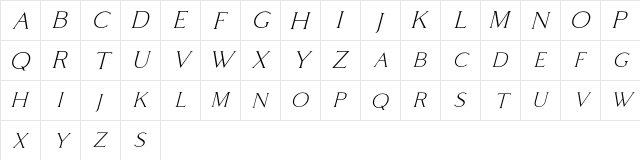
Coldiac Free Italic
Design Context for Coldiac Free Typeface
Coldiac Free takes a measured approach to typography — its balanced proportions and neutral character make it a reliable workhorse for both digital and print work. Its italic angle brings a sense of urgency and motion to the letterforms.
Pro Tip: Try Coldiac Free for annotation and caption copy alongside an upright companion — the contrast in angle creates a dynamic but ordered typographic system.